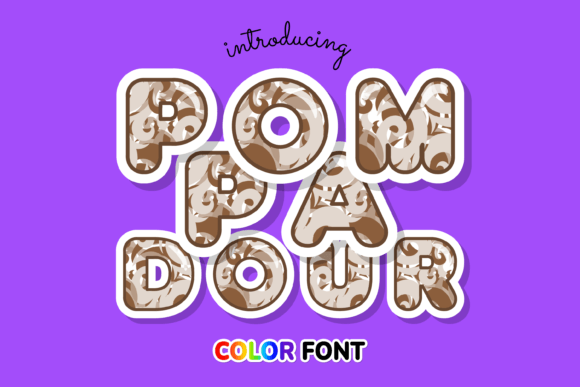
Pompadour Font
Unlock your creativity with Pompadour Font, the electrifying color font that will ignite your imagination! This enchanting family of fonts is adorned with vibrant hues, making it the perfect choice for adding a splash of color to your designs.
Immerse yourself in a world of limitless possibilities with Pompadour Font. Its versatility extends from captivating custom designs to charming DIY crafts. Whether you're a seasoned designer or simply seeking to add a touch of flair to your creations, this font will elevate your projects to new heights.
Indulge in the vibrant world of color fonts with Pompadour Font. Its compatibility with PhotoShop, Illustrator, Silhouette, and Inkscape empowers you to effortlessly add a dash of brilliance to your designs. Dive into a symphony of colors and let your imagination flourish!
Unleash your creative spirit with Pompadour Font, a captivating color font that will ignite your imagination. Its vibrant hues and compatibility with leading design software will empower you to transform your designs into breathtaking masterpieces. Experience the magic of Pompadour Font today!